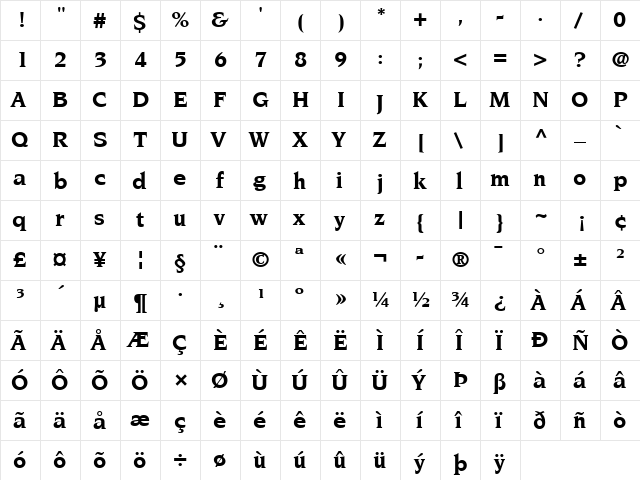
Novarese LT Book Bold Font Preview
Novarese LT Book Bold
Design Context for Novarese LT Book Typeface
Novarese LT Book is a composed and adaptable typeface that performs quietly and consistently across a wide range of design contexts. The heavy weight commands attention and anchors typographic hierarchies.